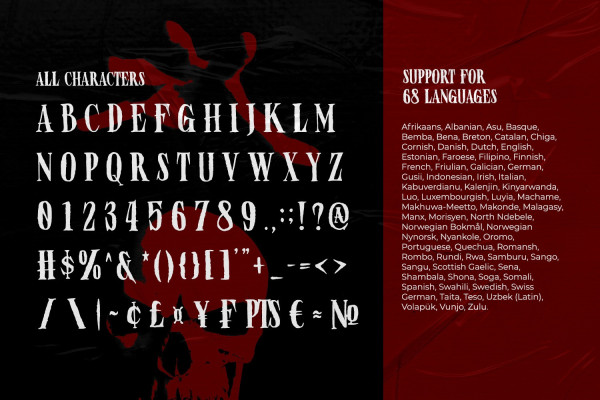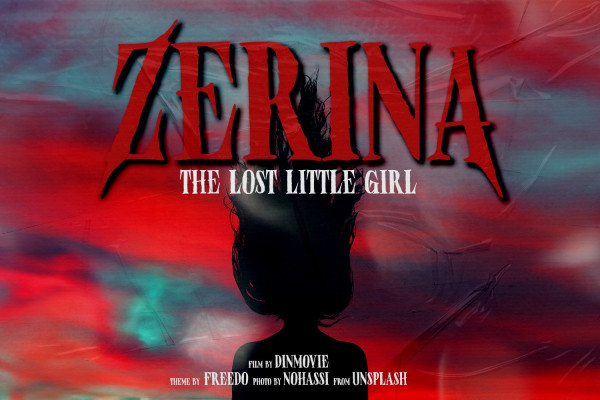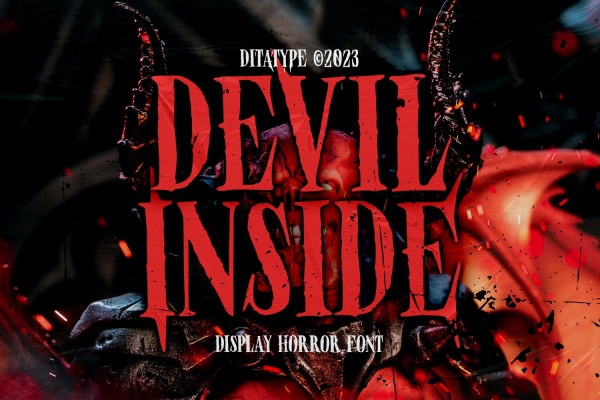
Devil Inside Font
Devil Inside Font is a spine-chilling display font that will send shivers down your spine. Designed in a large, bold font, this typeface demands attention and exudes an aura of darkness. Each letter is meticulously crafted with a square shape, high contrast, and haunting brush details, adding an eerie and sinister touch to the font. The large size of the letters enhances the font’s ominous presence, making it impossible to ignore.
The square shape of each letter adds a sense of rigidity and sharpness, while the high contrast brings an element of drama and intensity. These design choices contribute to the font’s unsettling and sinister look, immersing the viewer into a world of darkness and fear.
The brush details in Devil Inside give the font an organic and handcrafted appearance, as if it were inscribed with ancient symbols by a malevolent force. These haunting details add a sense of craftsmanship and enigma, creating an atmosphere of mystery and foreboding. For the best legibility you can use this font in the bigger text sizes. Enjoy the available features here.